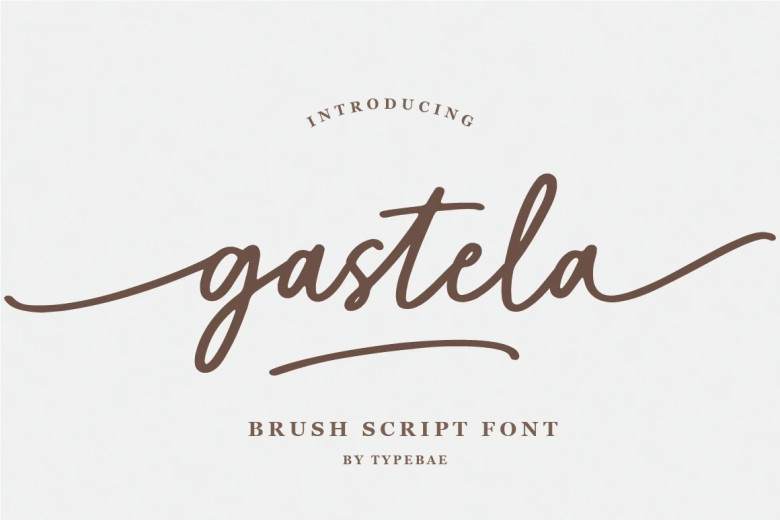
Gastela Font
Gastela is an exquisite stylized brush script font featuring beautiful tails at both ends of each letter, as well as ligatures to allow certain combinations of letters to flow more naturally for an authentic appearance. Furthermore, we have designed Gastela so its beginning and ending swashes (tails) don’t require software supporting opentype; making this user-friendly font.
Gastela Handwritten Script Font